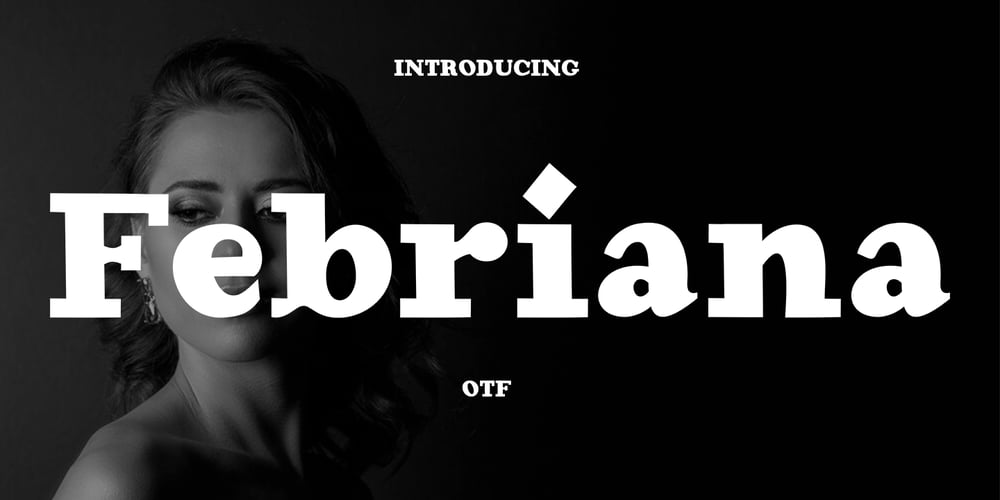
Febriana Font Family was designed by Teuku Saifullah and published by Shape Studio. Febriana contains 1 styles and family package options. Febriana is a mix of retro and modern serif font styles, with these tight curves giving traditional groovy, luxury and versatility. Margarita is made with a high degree of legibility and is perfect for nostalgic projects, vintage logos, wedding designs, social media posts, advertisements, product packaging, product designs, labels, photography, watermarks, invitations, stationery and more.